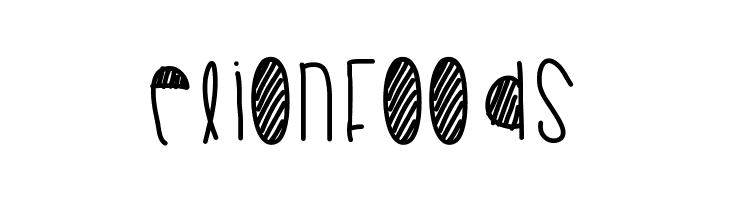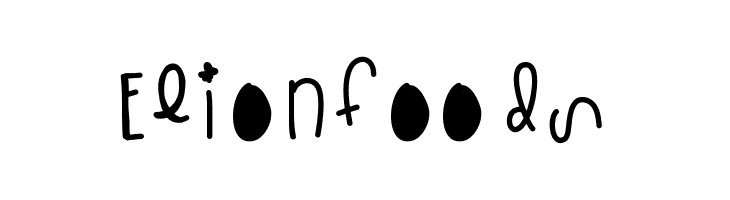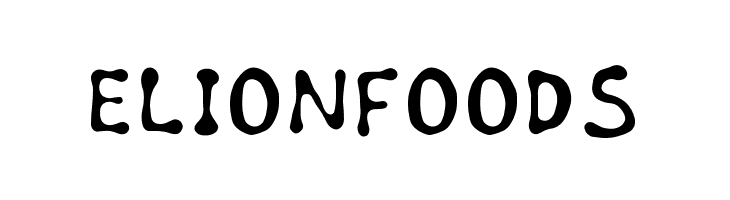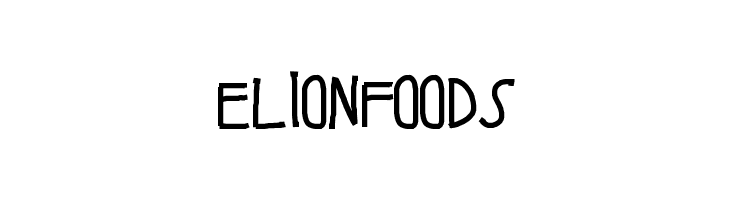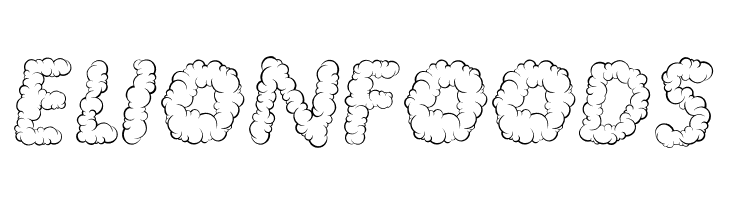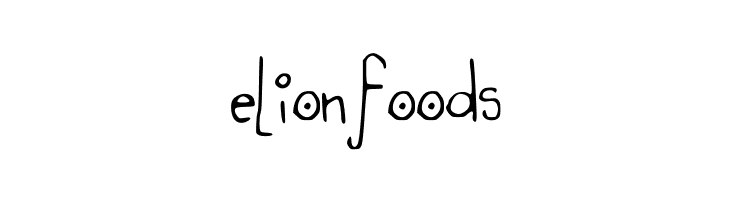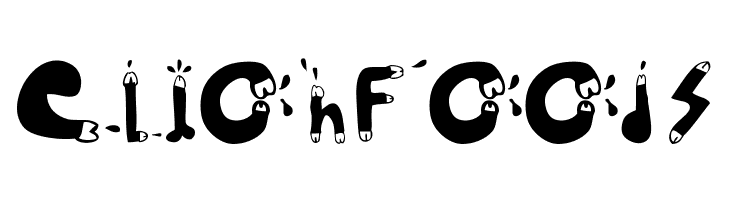
( Fonts by Maelle.K - Thomas Boucherie )
A decorative font with playful Halloween-themed icons.
( Fonts by Des Gomez )
A playful, hand-drawn font with a whimsical and informal style.
( Fonts by Des Gomez )
A playful, handwritten font with a whimsical and casual style.
( yavlenie.com )
A playful, hand-drawn font with rounded, irregular edges and a whimsical style.
( Fonts by Khrys Bosland )
A playful, hand-drawn font with a quirky, skeleton-like design.
( Fonts by Khrys Bosland )
A playful, hand-drawn font with a striped pattern and whimsical style.
( www.stefibert.it )
A playful, cloud-like font with rounded, bubbly characters.
A playful, bacon-themed decorative font with a hand-drawn style.
( www.woodcutter.es )
A playful, whimsical font with bold, rounded characters and decorative elements.